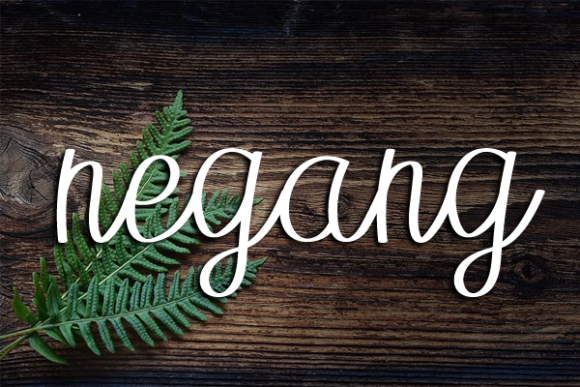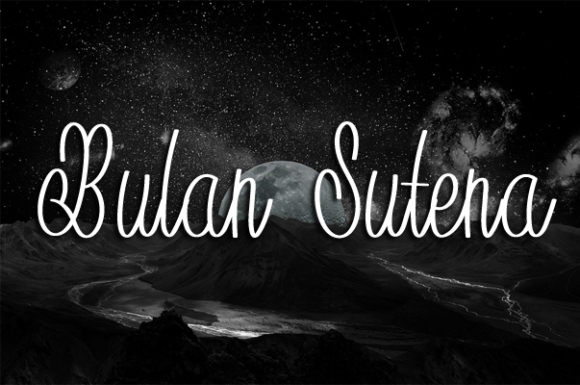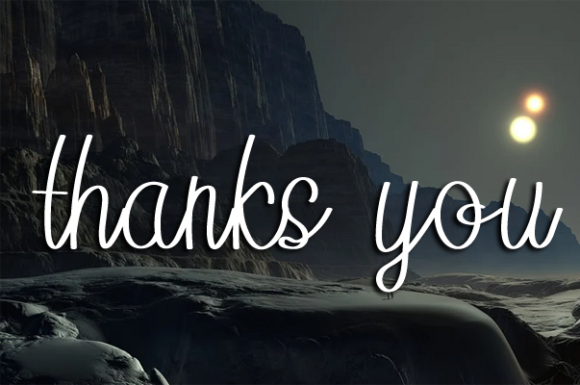
Gadalahi Font
About Gadalahi Font
Gadalahi is a well-balanced handwritten font. This versatile script font has a wide spectrum of applications ranging from greeting cards to headlines and is guaranteed to add a romantic feel to your next project.